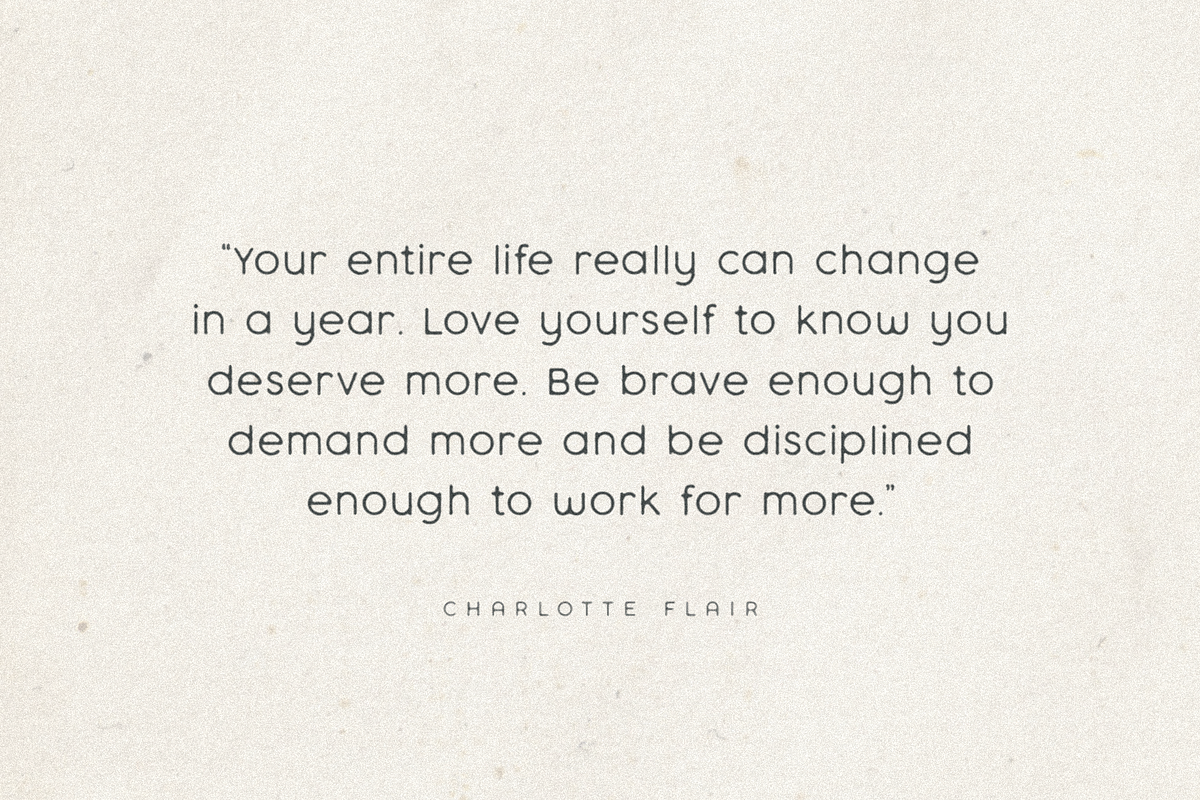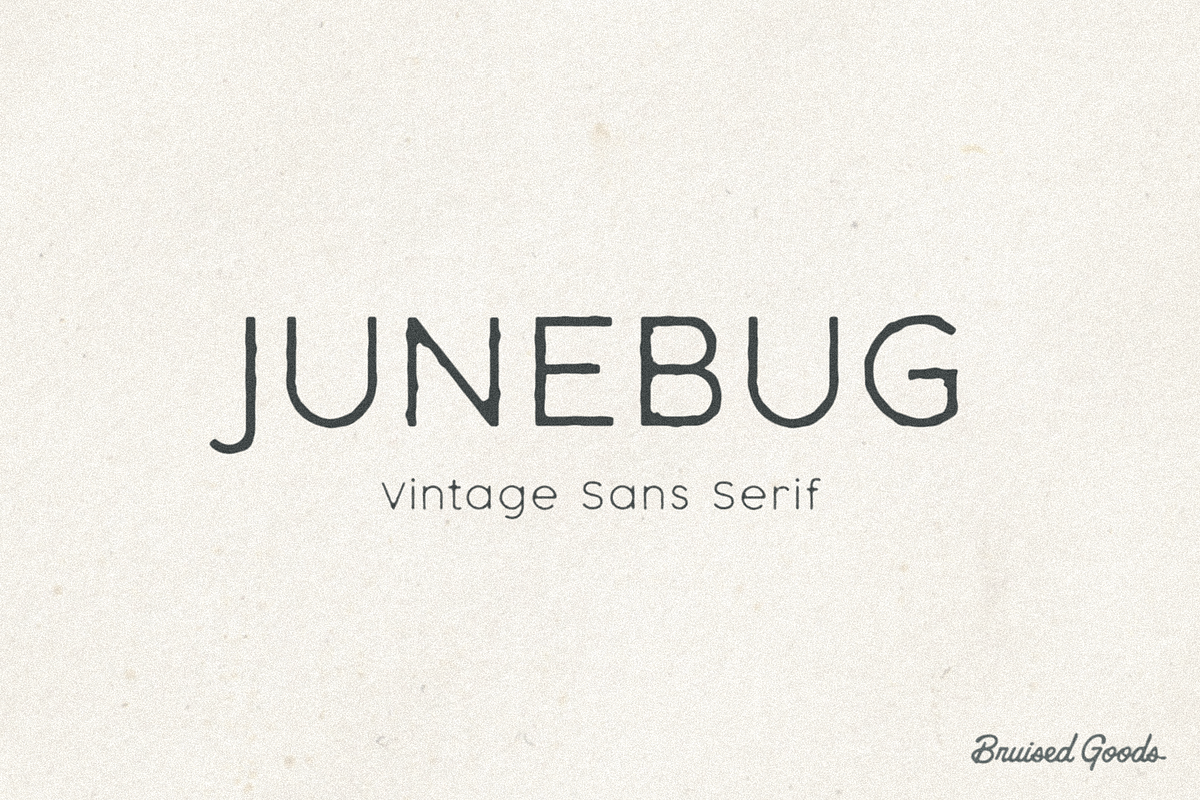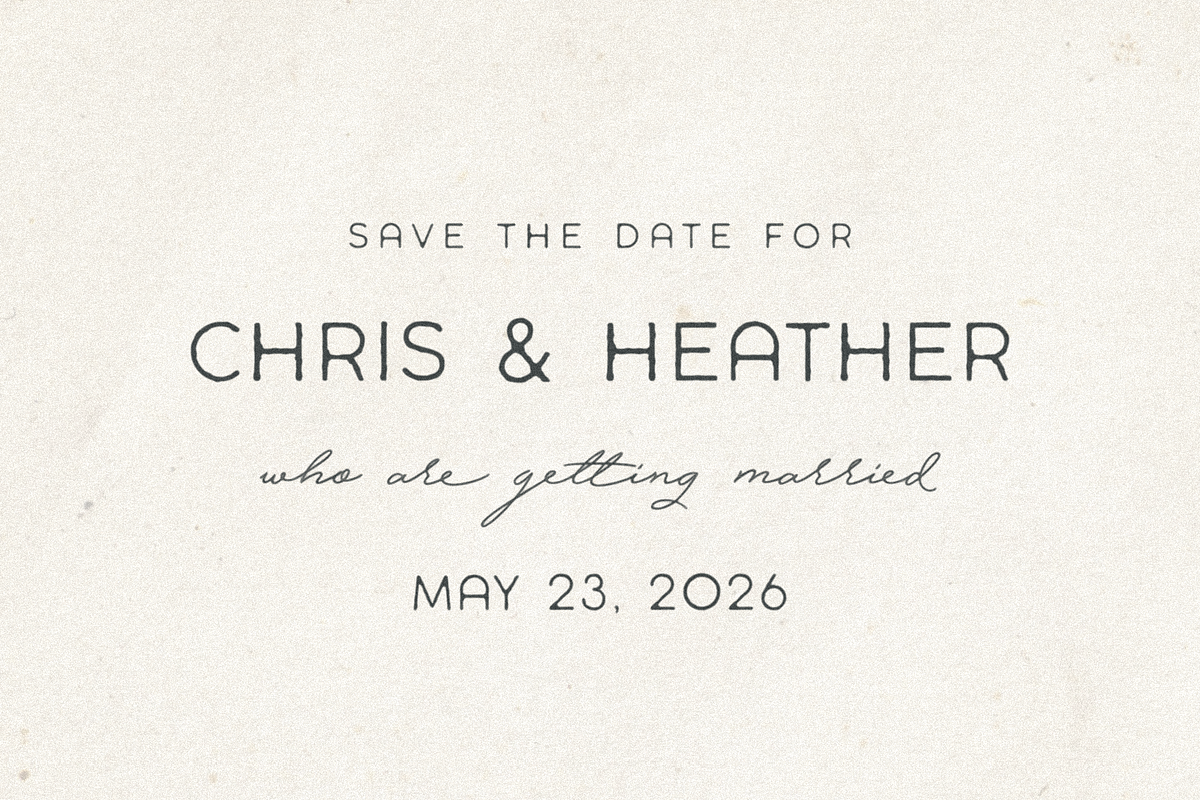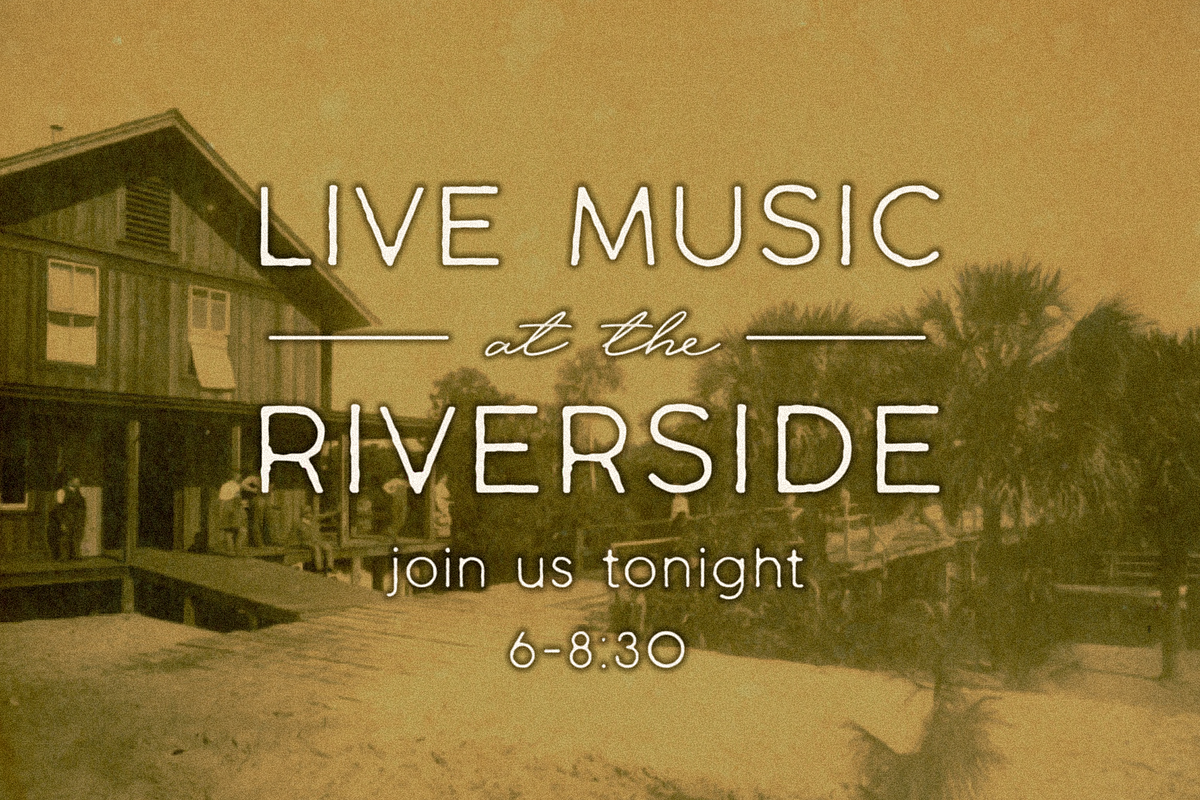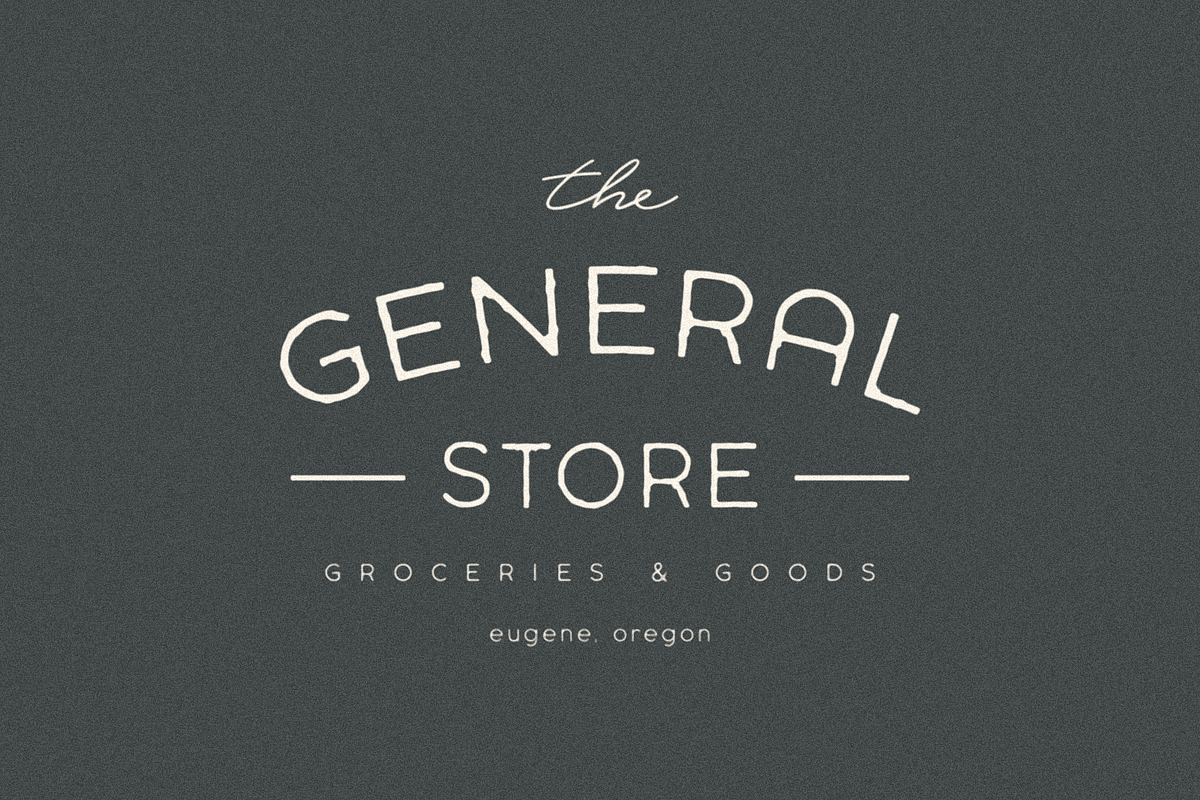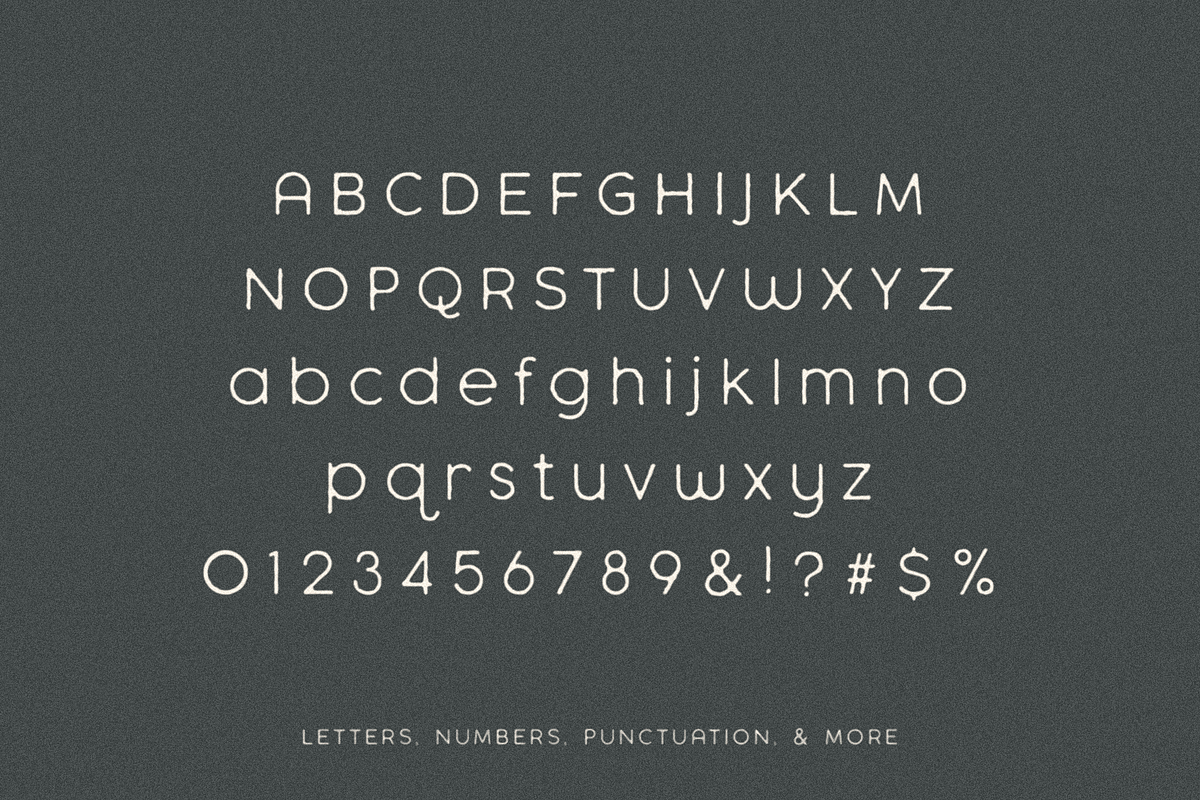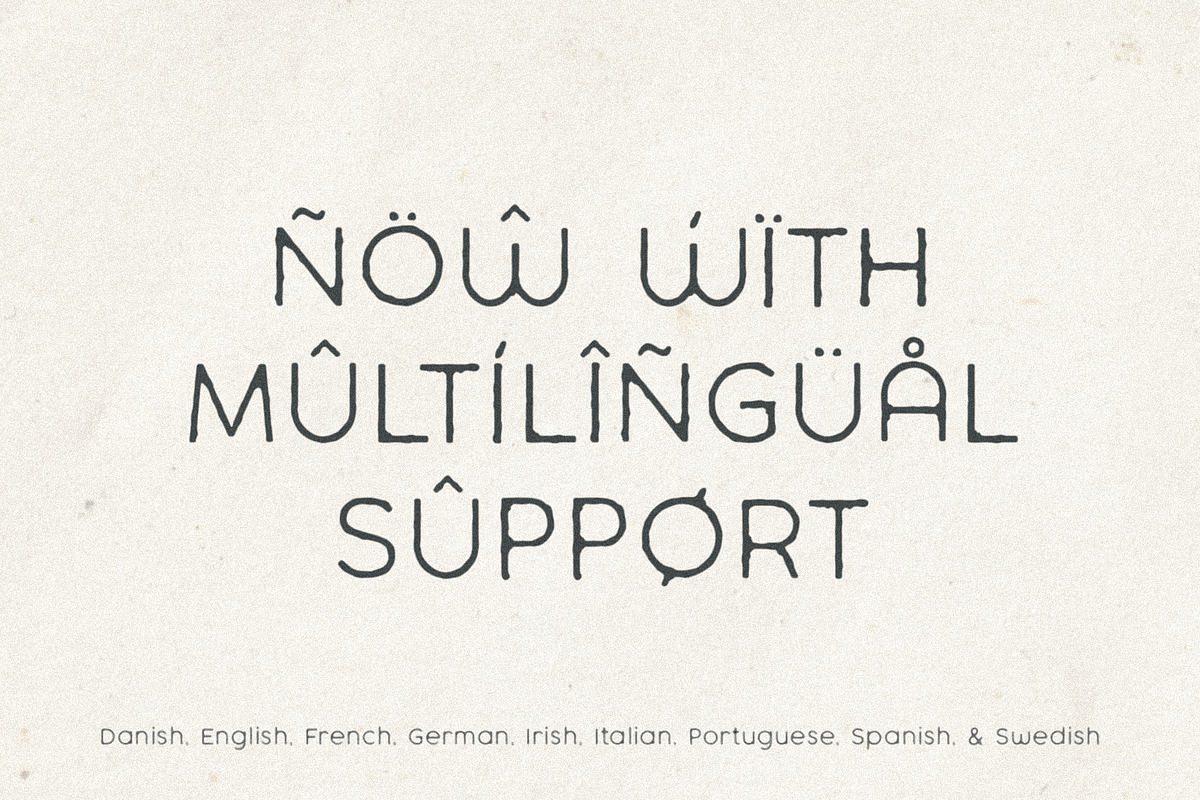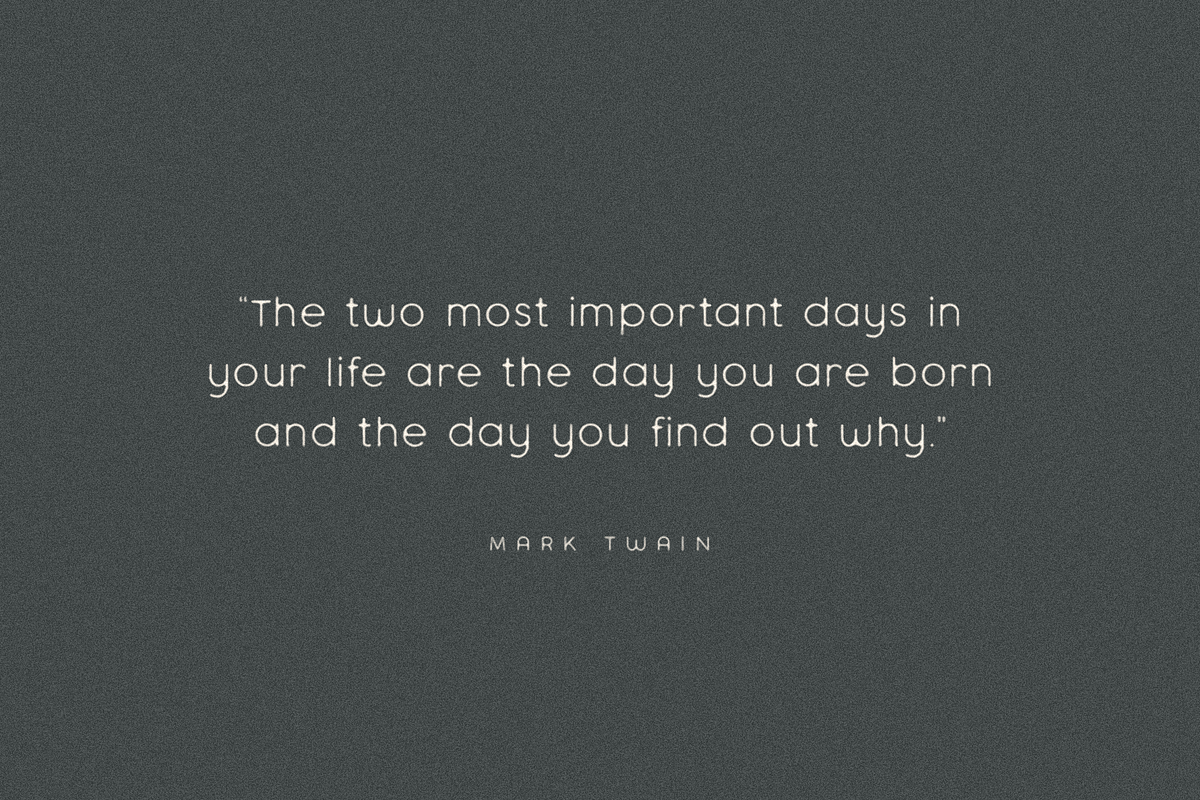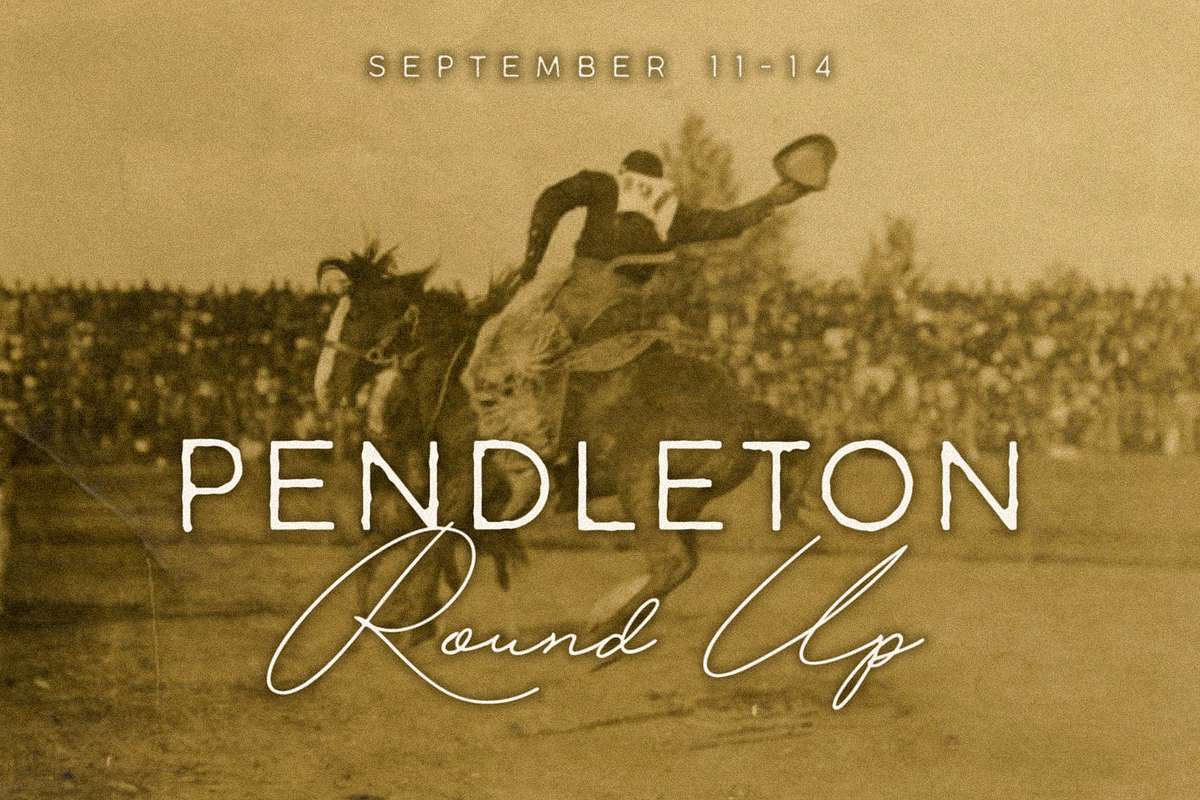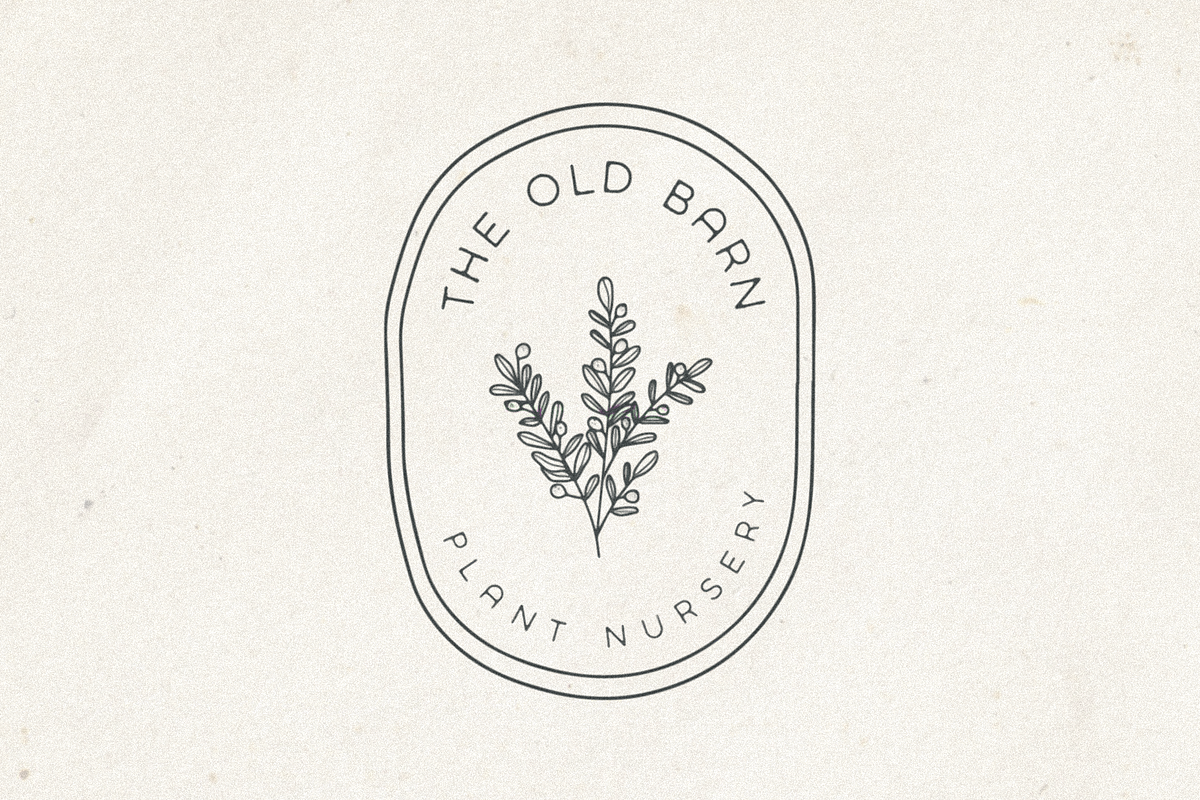
Junebug
JUNEBUG – A vintage sans serif, handcrafted by Bruised Goods. This font is simple and imperfect, in all the best ways.
Use this font for: ads, album covers, apparel, cards, flyers, invitations, logos, menus, merchandise, packaging, signage, web, and more.
- Letters, Numbers, Currency Symbols, Standard Punctuation, and Fun Extras
- 225 Glyphs Total
- Language Support: Danish, English, French, German, Irish, Italian, Portuguese, Spanish, Swedish, & Swiss German.